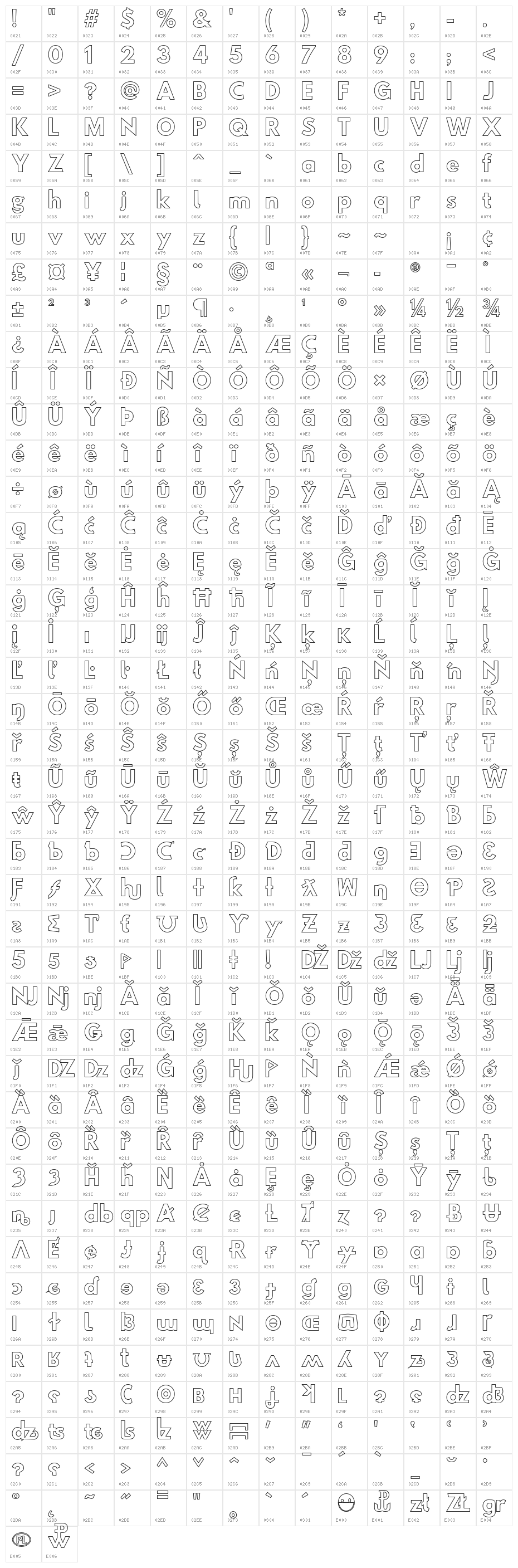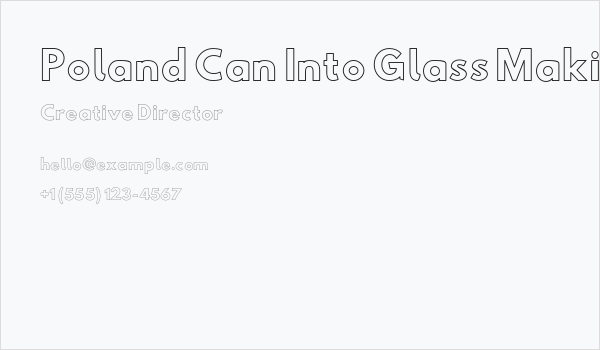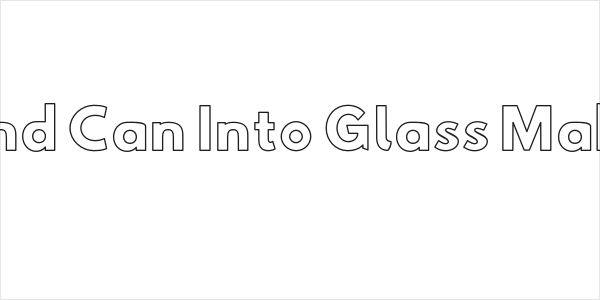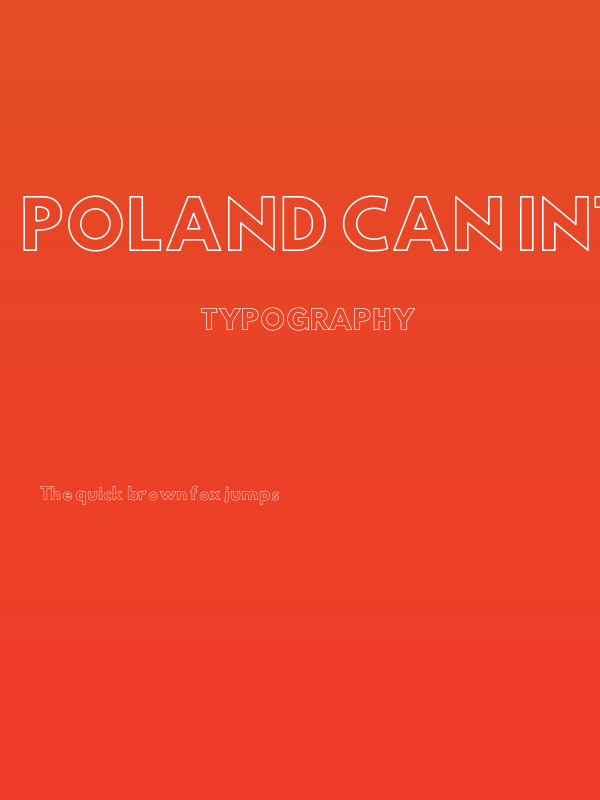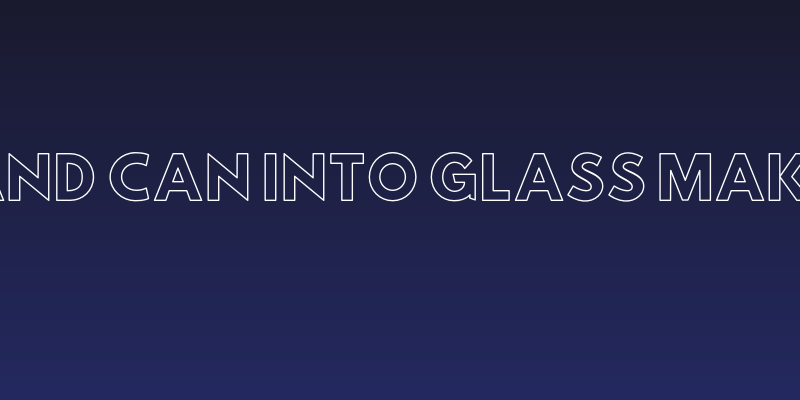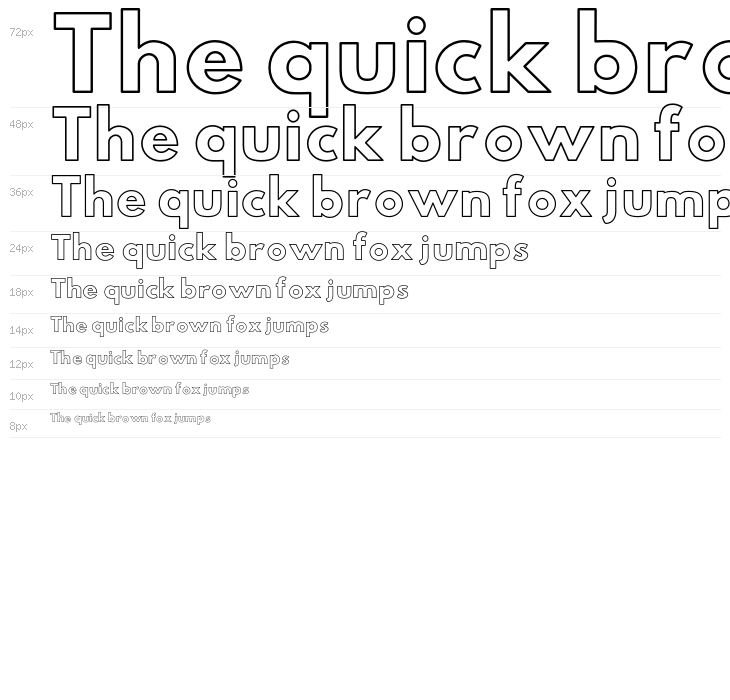
Poland Can Into Glass Makings Font
Poland Can Into Glass Makings Description
This font features a clean, geometric design with a hollow outline style that gives it a modern and minimalist appearance. The uppercase and lowercase letters are well-proportioned, maintaining a consistent stroke width throughout. The numerals and special characters follow the same design principles, ensuring uniformity across all characters. The font's open structure and clear lines make it highly legible, even at smaller sizes. Its simplicity and elegance make it versatile for various design applications, from digital media to print.
| Proposed Projects | Ideal for branding, headlines, posters, and digital media where a modern and clean aesthetic is desired. |